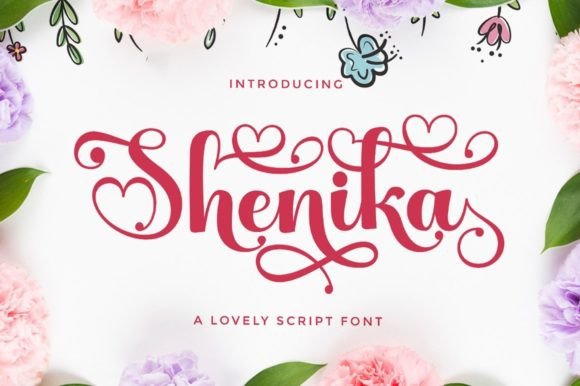
Introducing Shenika Font, the perfect choice for adding a touch of love and elegance to your next project! Created by the talented LetterFreshStudio, this script font is specifically designed for those looking to create eye-catching birthday cards that truly stand out.
With its unique feature of connecting hearts, Shenika Font exudes a sense of warmth and charm, making it ideal for personalized initial designs and captivating display projects. Whether you're designing a magazine cover, crafting beautiful handmade cards, or creating stunning holiday decorations, this font is sure to leave a lasting impression.
What sets Shenika Font apart is its wide variety of heart illustrations that accompany each character. Imagine the possibilities! From delicate and intricate hearts to bold and playful ones, you'll find the perfect heart symbol to match your creative vision. These adorable heart embellishments add an extra touch of sweetness and make your designs truly one-of-a-kind.
When it comes to birthday cards, Shenika Font reigns supreme. Its graceful script style combined with the heart accents create a harmonious blend of elegance and whimsy. Each stroke carries a sense of celebration and joy, ensuring that your heartfelt messages are beautifully conveyed to your loved ones. From heartfelt wishes to delightful sentiments, this font brings every word to life.
Not only does Shenika Font capture attention with its enchanting aesthetics, but it also offers incredible versatility. Its seamless integration into various design software makes it a breeze to work with, allowing you to effortlessly bring your creative ideas to fruition. Whether you're a seasoned designer or a passionate hobbyist, this font is your gateway to stunning typographic masterpieces.